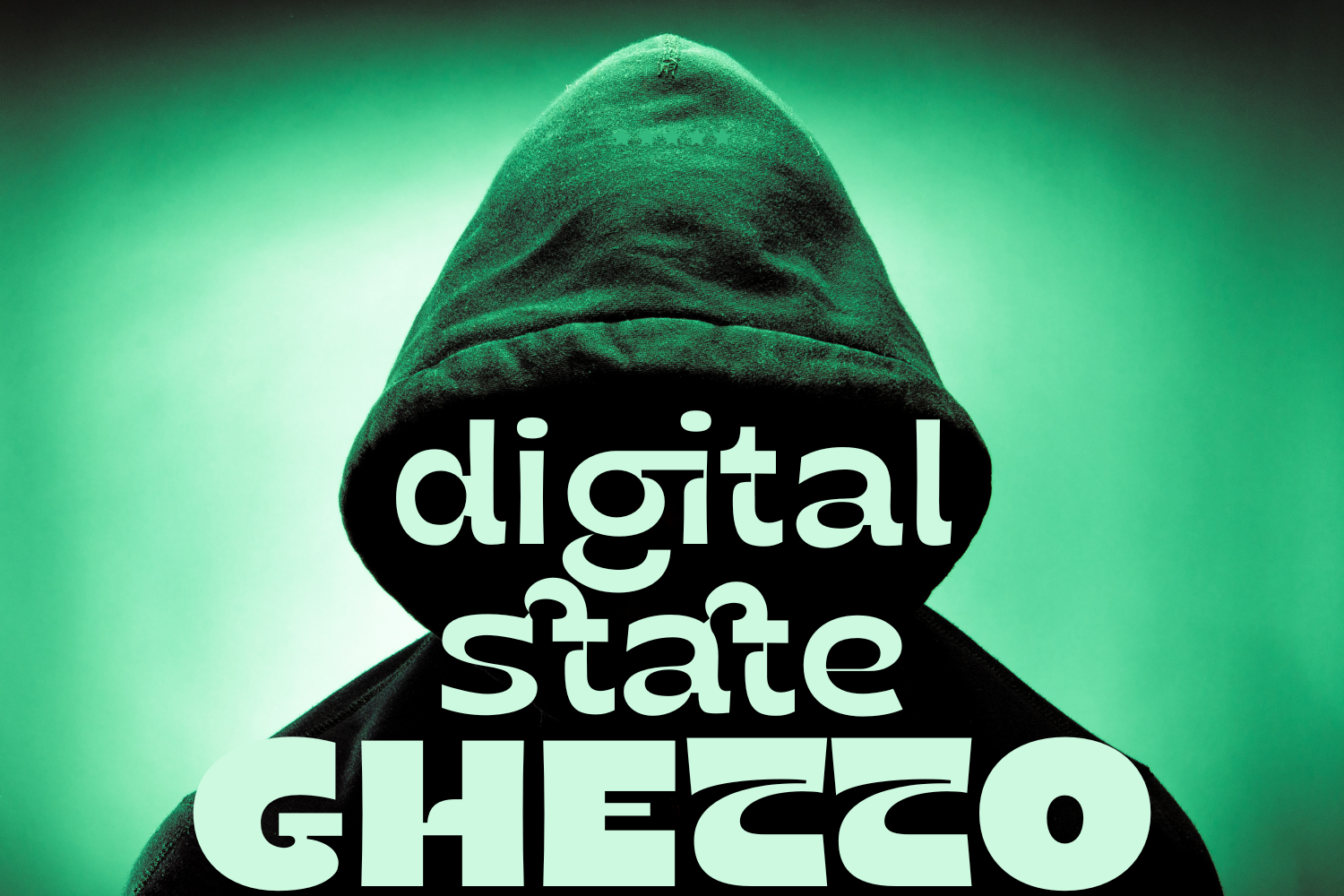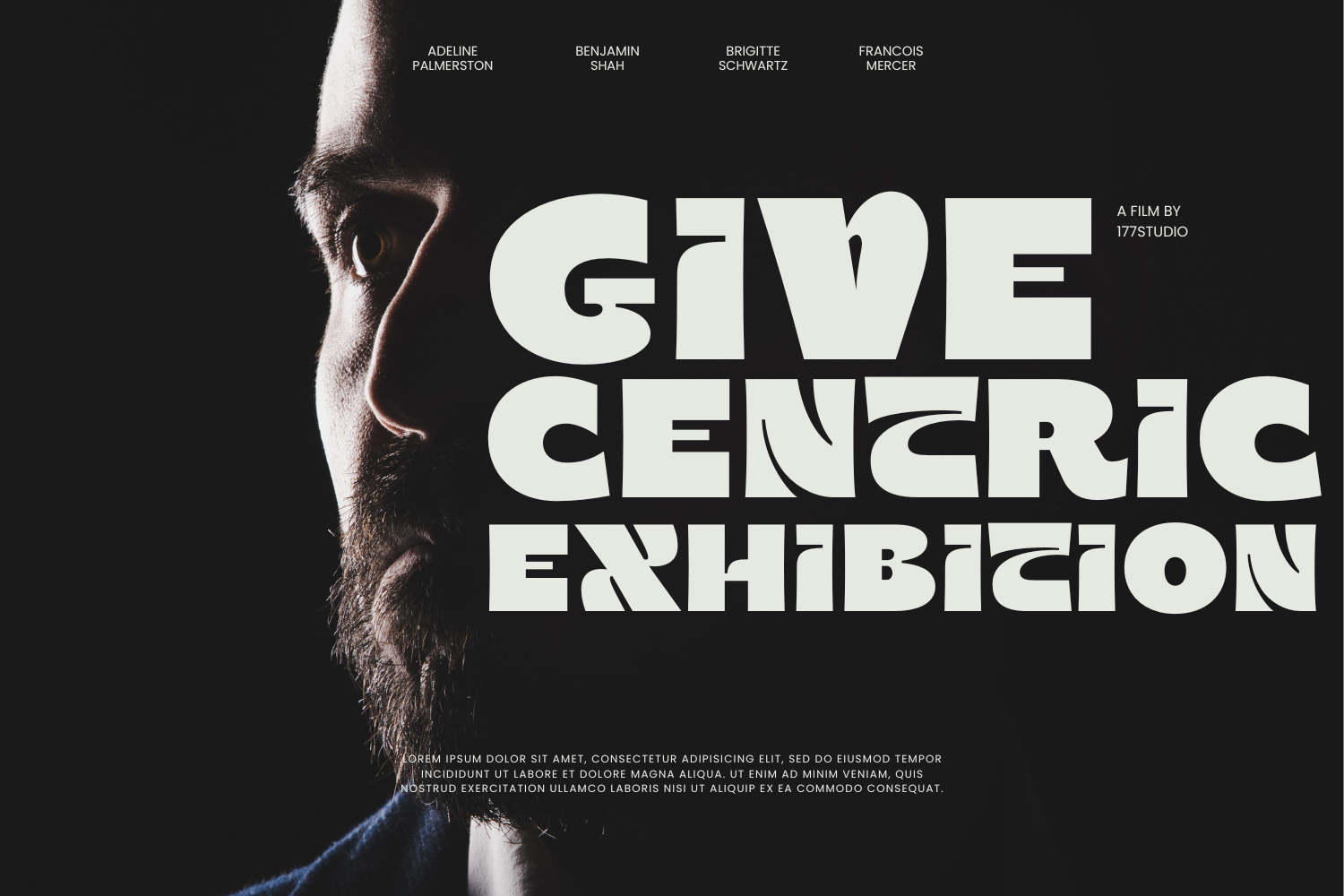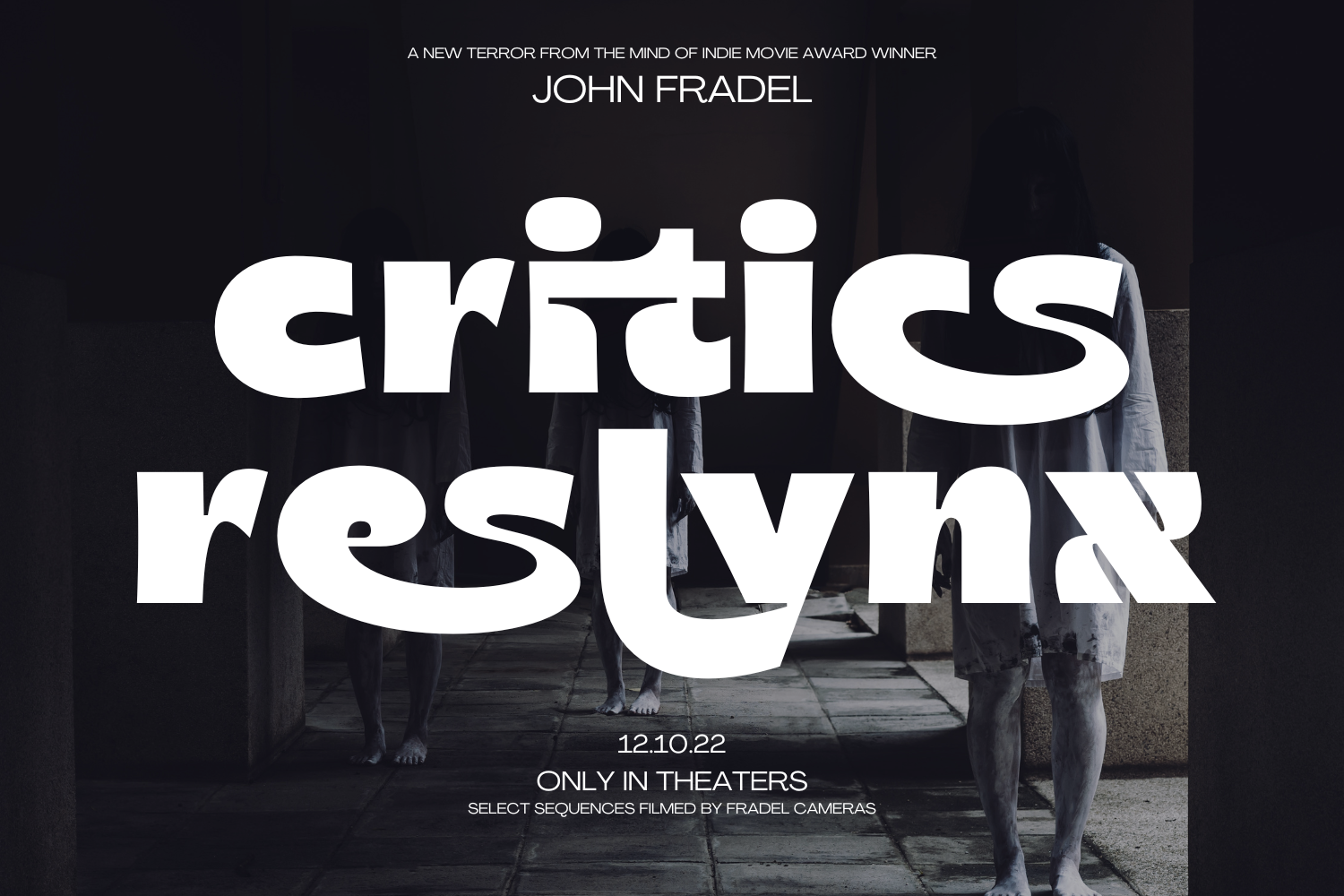
Taygiacs Font
Taygiacs Font Family is a fancy modern condensed all Caps sans serif font. With bold tall and sharp stroke, fun character with a bit of ligatures and alternates. To give you an extra creative work. By having this font collection and understanding the art and science of typography well will help you to create something truly extraordinary that no one else has ever thought of, such as logo design projects, marketing campaigns, UI design, creative videos, packaging design and similar jobs.
To make it look more unique, here we prepared some ligatures:
as at ay ca cs ct cc ce co da dc de do dy ea es et ec ee eo fj ff ft fy fu gi gj gt gy if it jf jt ks ti tj tf tt ty tu st ot la lc le lo ly…